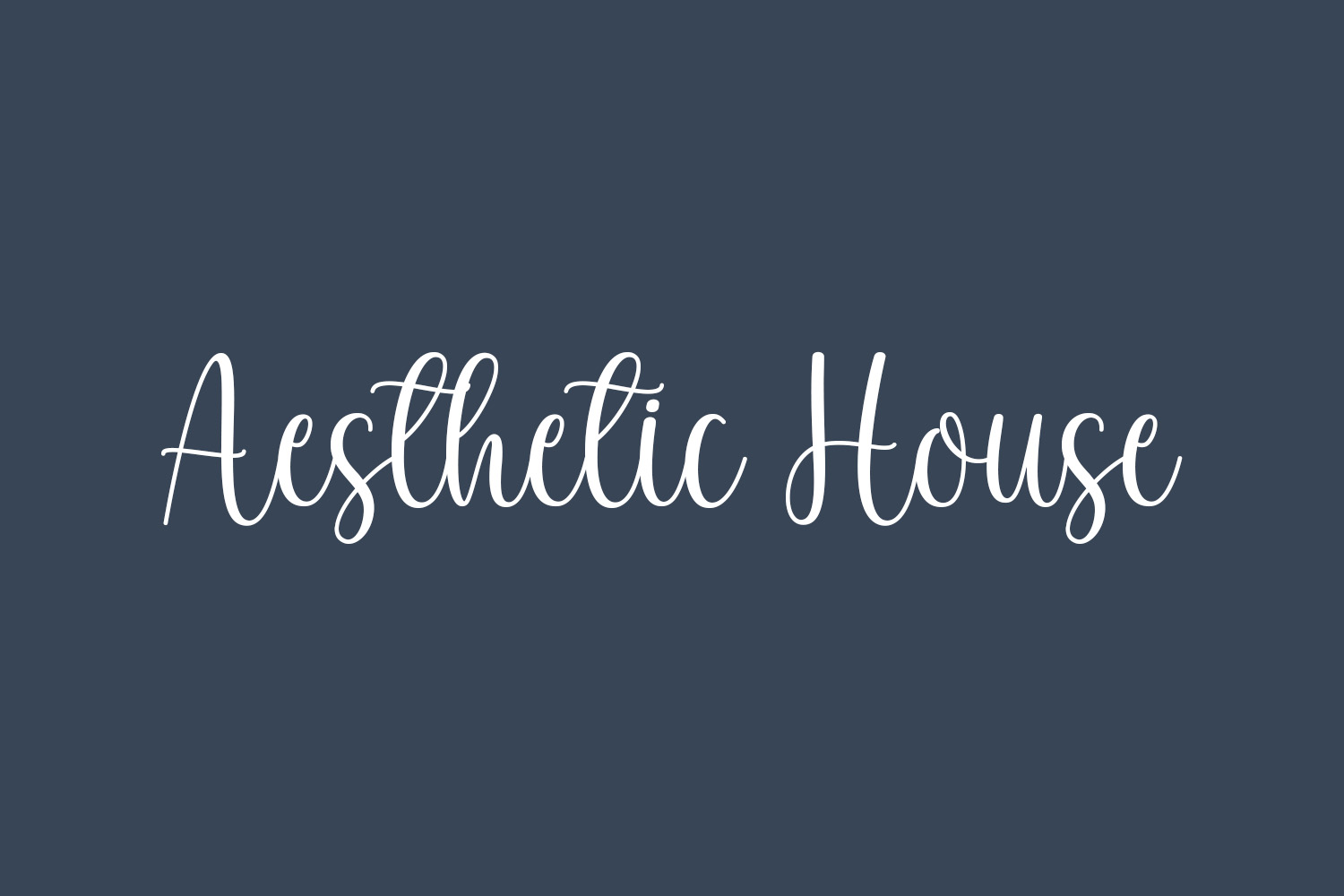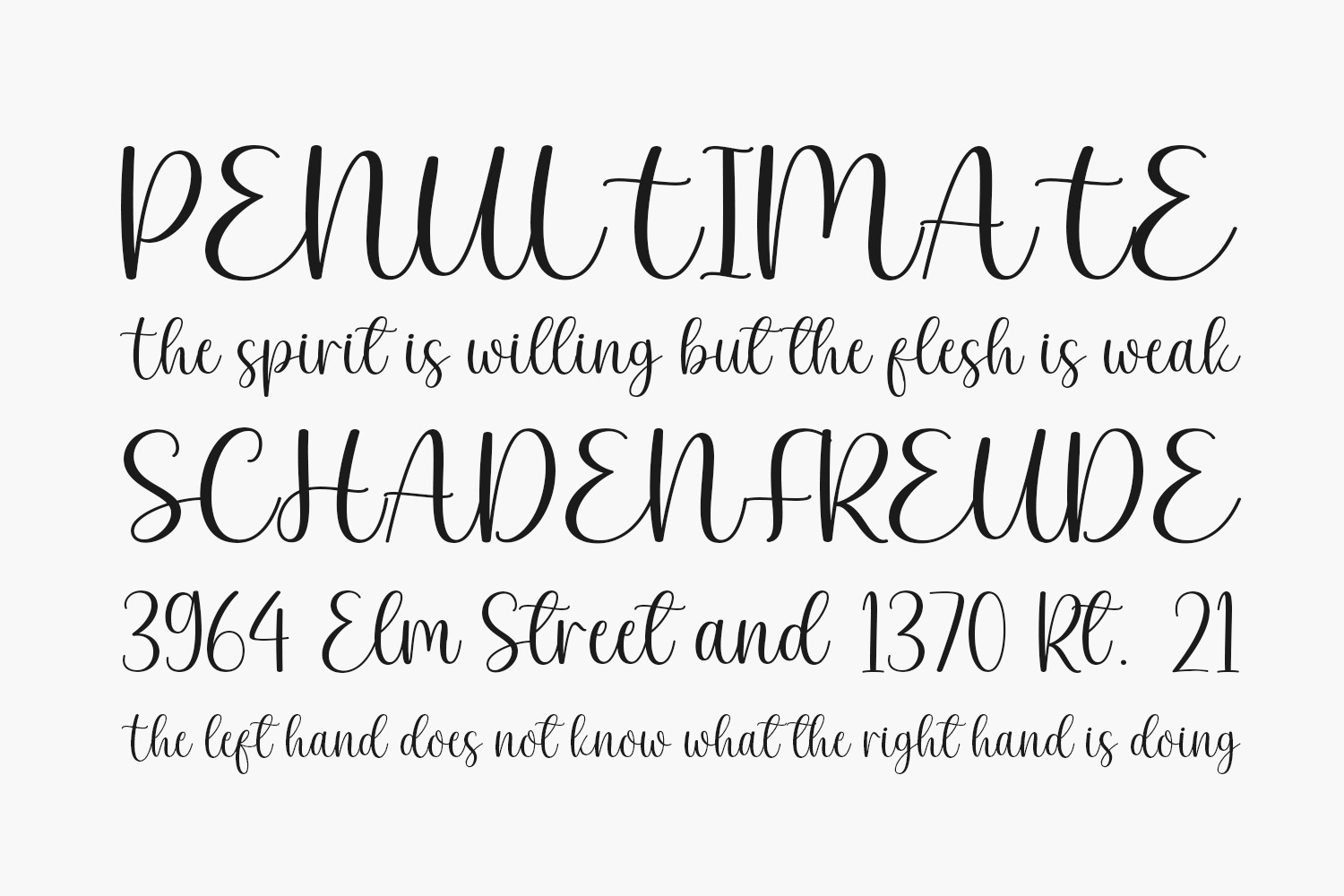
Discover Aesthetic House Free Font, a script font characterized by its minimalist and sweet theme, featuring a dynamic shape that perfectly complements various minimalist design requirements. Ideal for posters, business cards, boutique logos, women’s magazines, and more, this font brings a touch of elegance to your projects. Elevate your designs with the subtle beauty of Aesthetic House for a chic and sophisticated aesthetic. Aesthetic House Free Font is free for personal use only. Please purchase the full version for commercial use.